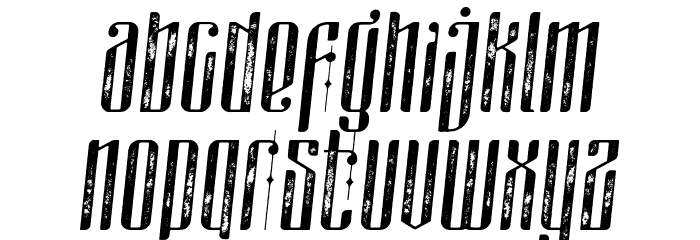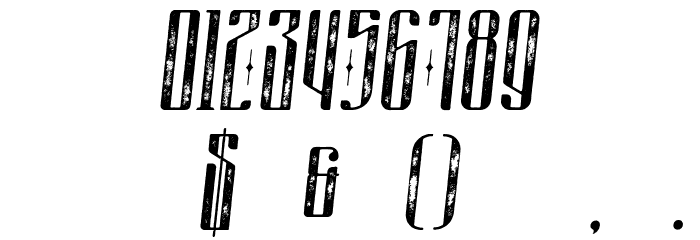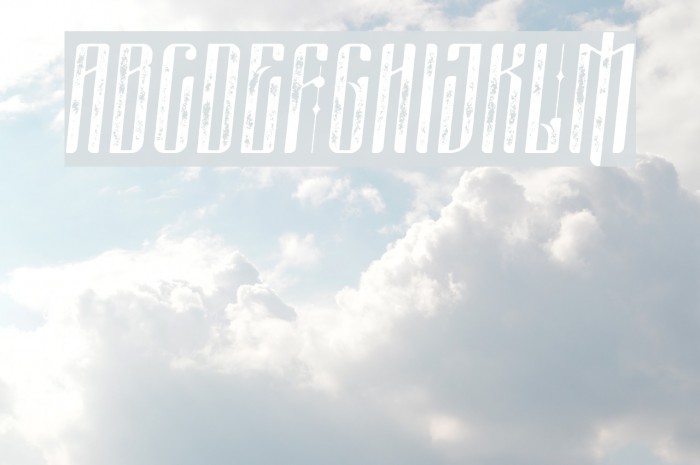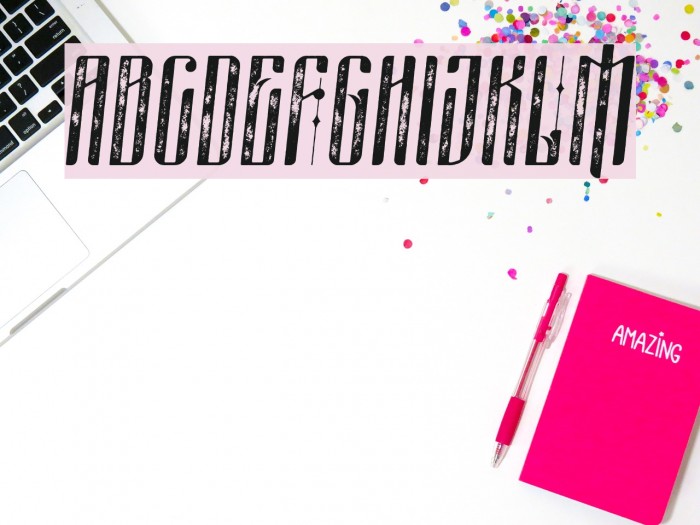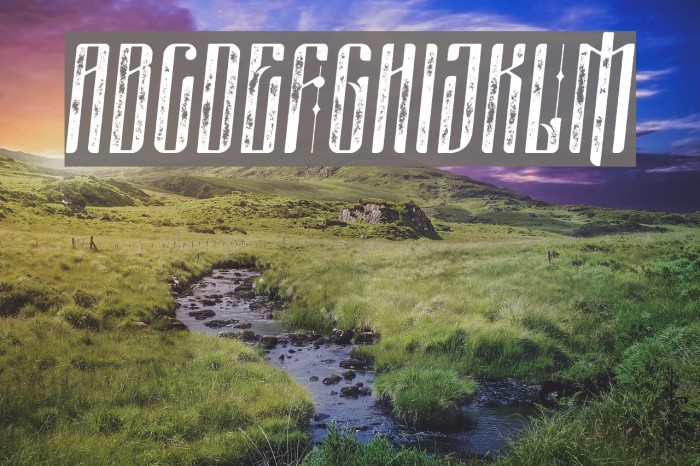
masquerouge rough italic Font
This font features a bold, italicized style with a rough, distressed texture that gives it a rugged and edgy appearance. The characters are elongated and slightly condensed, with sharp angles and a consistent slant that adds a dynamic feel. The uppercase and lowercase letters maintain a cohesive look, while the numbers and special characters complement the overall design. The texture adds a vintage, worn-out effect, making it suitable for projects that require a gritty or industrial aesthetic.
A bold, rough, italicized font with a distressed texture and dynamic slant.
- Proposed Projects: Ideal for posters, album covers, branding for edgy products, or any design needing a vintage, industrial touch.
- Overall Style: Vintage, Decorative